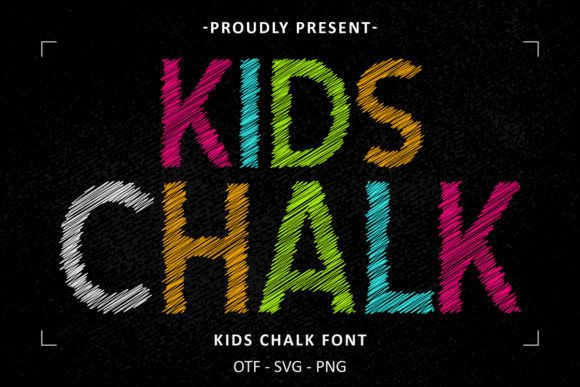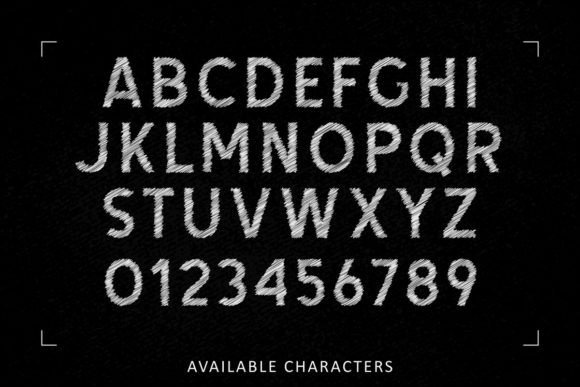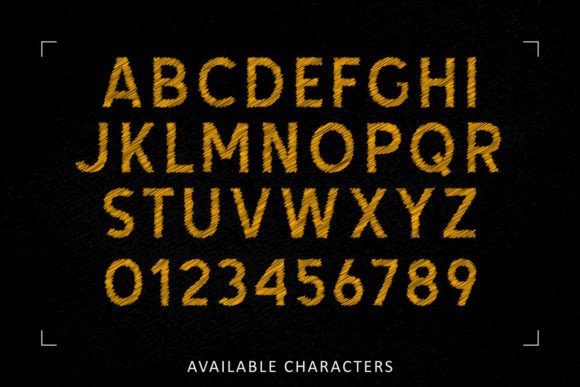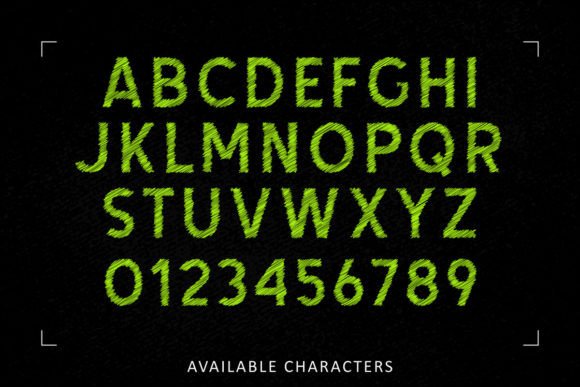
Discover the charm of Kids Chalk Font. This font is a perfect blend of modern aesthetics and classic appeal. Introducing “Kids Chalk Font” – is a great sketch display font. It’s suitable for chalk writing and it’s the perfect font for school-themed projects. It works great for creating cool designs that scream for attention. It’s ideal for anything ranging from t-shirts, book designs, restaurant menus, blog writing, and greeting cards to stickers, or anything that needs a casual touch. Fall in love with its incredibly cool style, and use it to create lovely designs!
Kids Chalk Font’s playful, slightly irregular character makes it perfect for headlines, short text blocks on posters, and children’s book illustrations. Its hand-drawn quality lends itself well to branding for businesses targeting a younger demographic or those emphasizing a fun, approachable image. However, avoid using it for body text or UI elements; its low readability at smaller sizes will hinder user experience.
This font pairs well with clean sans-serifs like Open Sans or Lato for a balanced contrast, or with a more geometric sans-serif like Montserrat for a modern feel. A simple serif like Merriweather could also provide a sophisticated counterpoint, enhancing the handmade charm of Kids Chalk Font.
The font’s overall personality is undeniably friendly and informal, conveying a sense of youthful energy and creativity. It’s best suited for projects needing a lighthearted, approachable, and slightly imperfect aesthetic.